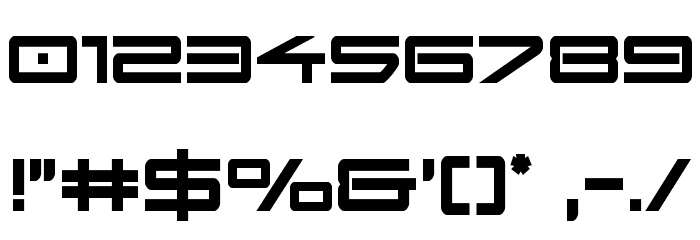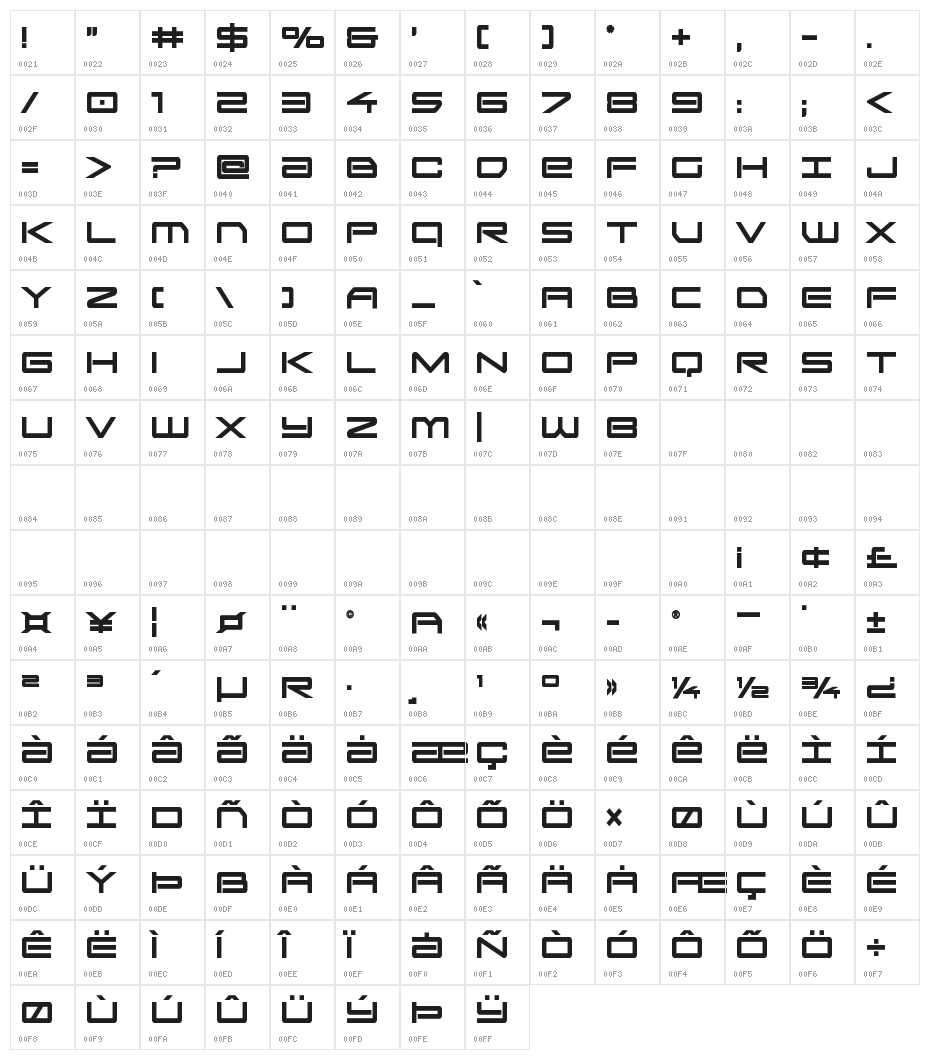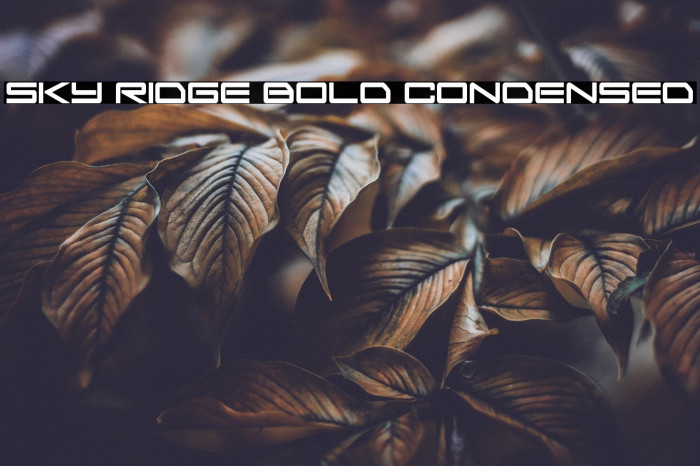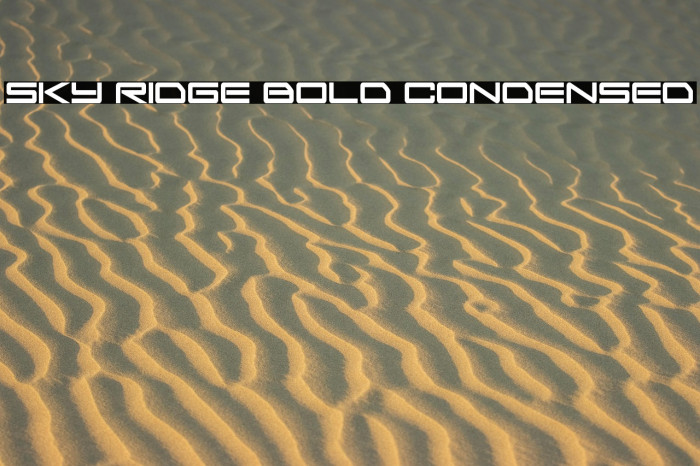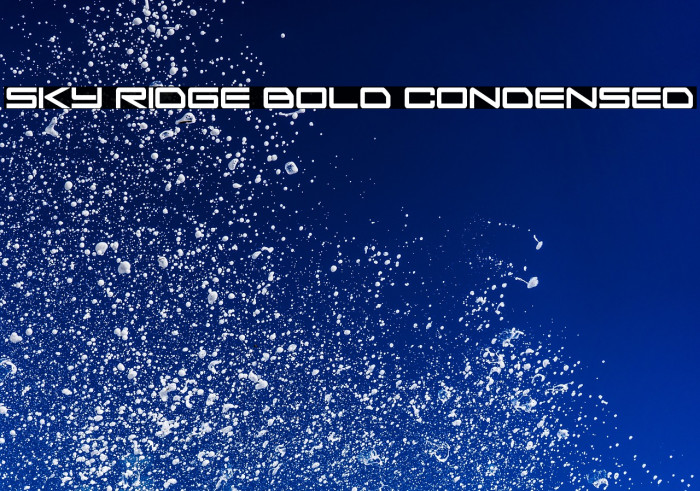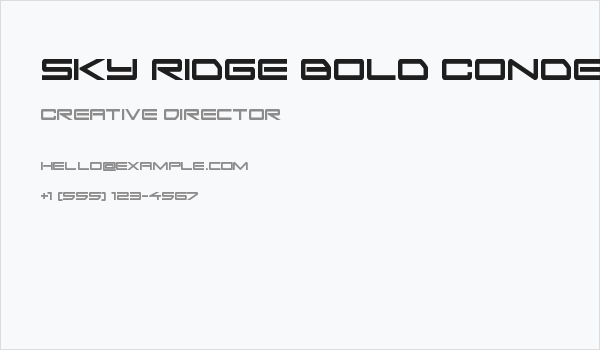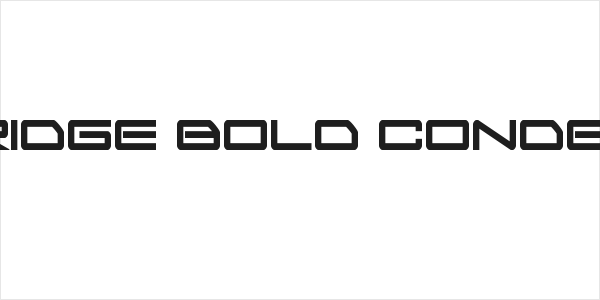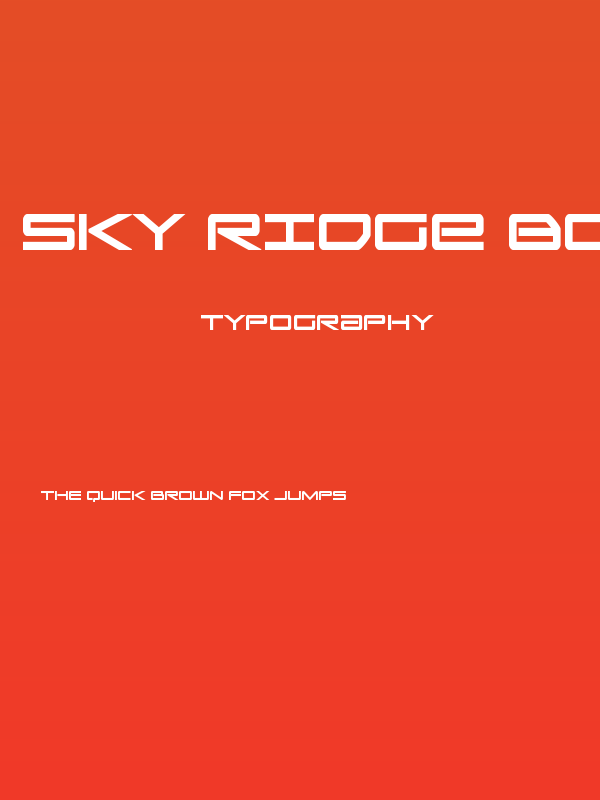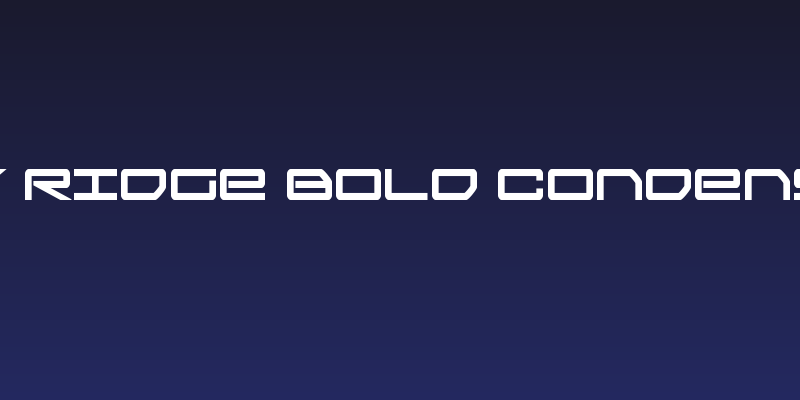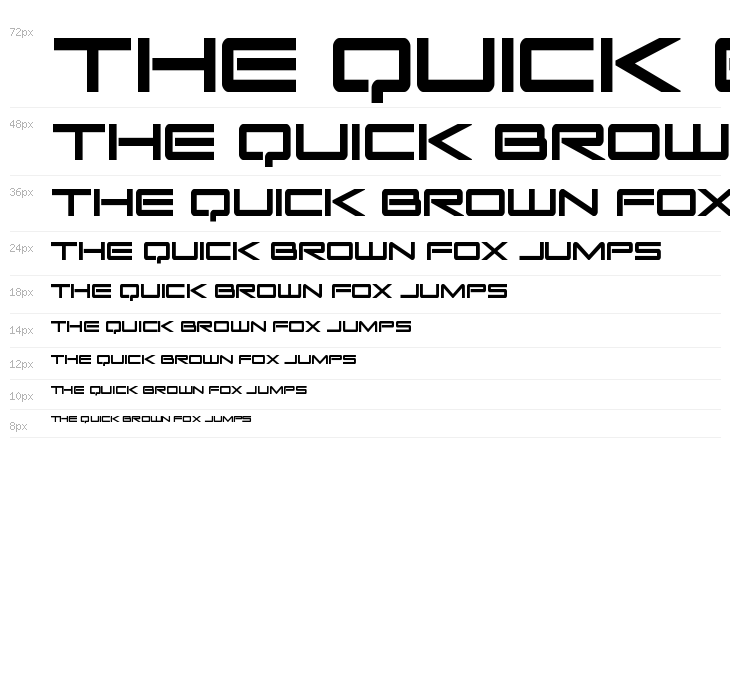
Sky Ridge Bold Condensed Font
Sky Ridge Bold Condensed Description
This font features a bold and condensed style with a futuristic and geometric appearance. The characters are designed with sharp angles and clean lines, giving it a modern and technical look. The uppercase and lowercase letters maintain a consistent height, enhancing its uniformity. The numerals are equally bold, with a distinct, angular design that complements the alphabetic characters. Special characters are crafted to match the overall aesthetic, making this font suitable for digital and print media where a strong, impactful presence is desired.